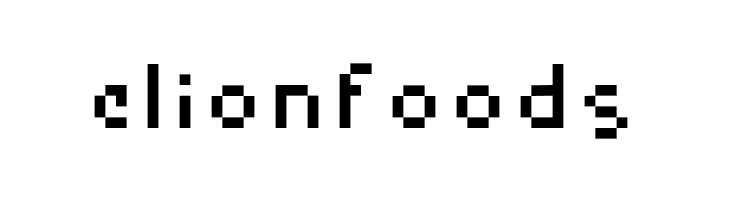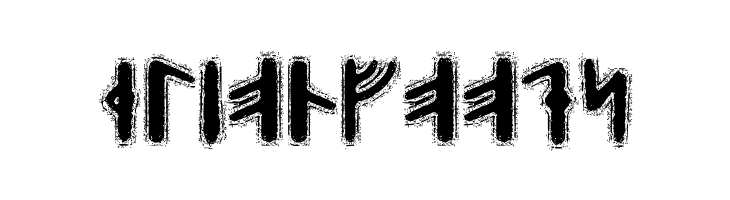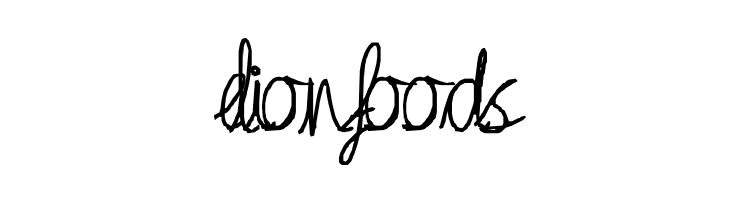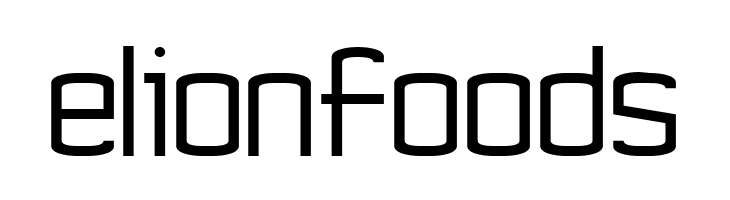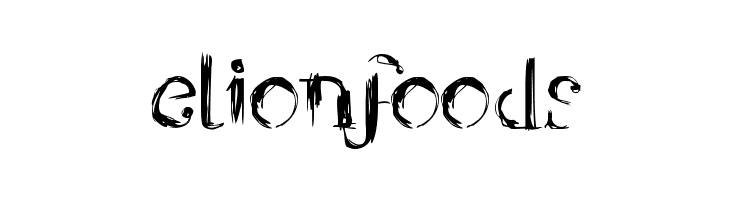
• Yantramanav Medium
A modern, geometric sans-serif typeface with uniform stroke widths and excellent readability.
• Yantramanav Regular
A modern, geometric sans-serif font with uniform stroke widths.
• Yantramanav Thin
A modern, thin sans-serif font with a clean and minimalist design.
• Yapix
A pixelated, blocky font with a retro digital aesthetic.
• Yellow Back Radio
A dynamic, brush-stroke font with jagged, artistic edges.
• yet again
• Yggdrasil Runic
A decorative, runic-inspired font with a bold, distressed texture.
• Ynnovatta
A modern, geometric font with rounded edges and a clean, monospaced appearance.
• Yo La Tengo
A playful, hand-drawn font with a whimsical and artistic style.